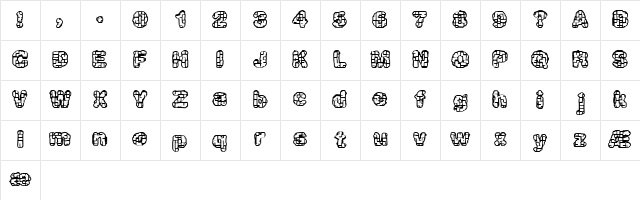
Katalyst active BRK Regular
Complete Katalyst active BRK Regular glyph index. Displaying only characters natively supported by Katalyst active BRK Regular font.
Design Context for Katalyst active BRK
Katalyst active BRK is a composed and adaptable typeface that performs quietly and consistently across a wide range of design contexts.